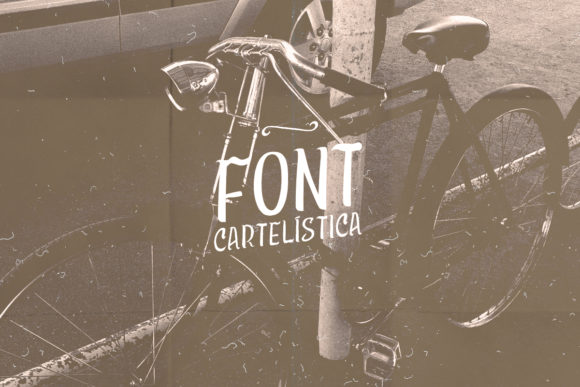
The Hunt for the Perfect Font: How Cartelística Stole My Heart
I still remember the frustration of scrolling through font after font, searching for the perfect one to bring my design project to life. It was for a client’s wedding invitation, and I wanted something that would make it stand out. The brief was simple: elegant, vintage, and with a personal touch. I must have tried a dozen fonts, but none seemed to fit the bill. That was until I stumbled upon Cartelística, a beautiful handwritten font with a vintage feel that instantly elevated my design.
An Honest Review of Cartelística
So, what makes Cartelística so special? Here are a few things I love about this font:
• Elegant and sophisticated: Cartelística has a luxurious feel to it, making it perfect for high-end designs, branding, and wedding projects.
• Vintage charm: The font’s subtle imperfections and handwritten feel give it a unique, nostalgic charm.
• 💫 Versatile: Cartelística works beautifully for headings, logos, labels, and even signatures.
Of course, no font is perfect, and Cartelística has a few minor quirks:
• 🤔 Limited use in body text: While Cartelística is stunning for headings and titles, it may not be the best choice for longer body text due to its decorative nature.
• ⚠️ Some letters may require manual kerning: As with many handwritten fonts, you may need to adjust the kerning of certain letter combinations for optimal results.
The Story Behind Cartelística: A Designer’s Inspiration
Cartelística was inspired by traditional Latin American posters and signs. Its creator aimed to capture the essence of vintage typography, combined with a modern, elegant feel. The result is a font that feels both nostalgic and sophisticated.
Author Sebastián Sánchez
What type of projects is Cartelística best suited for? Cartelística excels in projects that require elegance and a vintage touch, such as branding, wedding designs, invitations, and luxury packaging.
Does Cartelística support OpenType features? Yes, Cartelística supports OpenType features, including ligatures, stylistic alternates, and glyphs, which can enhance your designs.
Is Cartelística difficult to read in large blocks of text? Due to its decorative nature, Cartelística is best used for headings and titles. For longer text, a more straightforward font might be more readable.